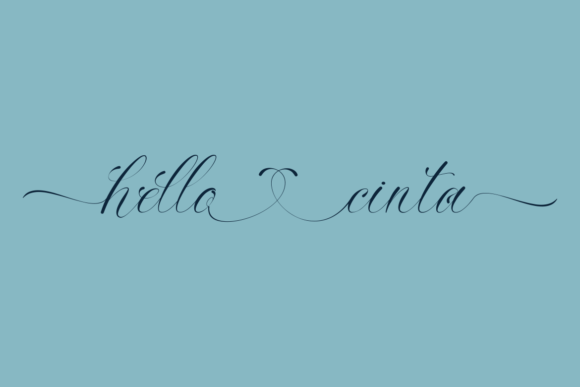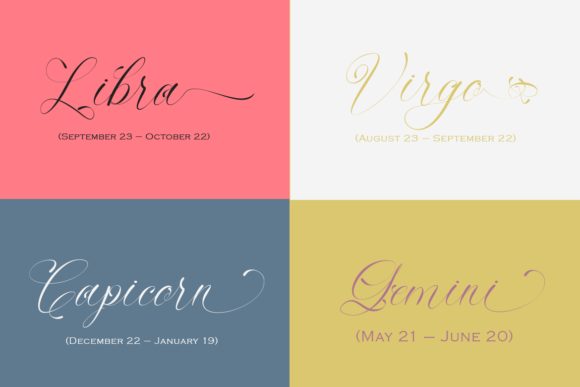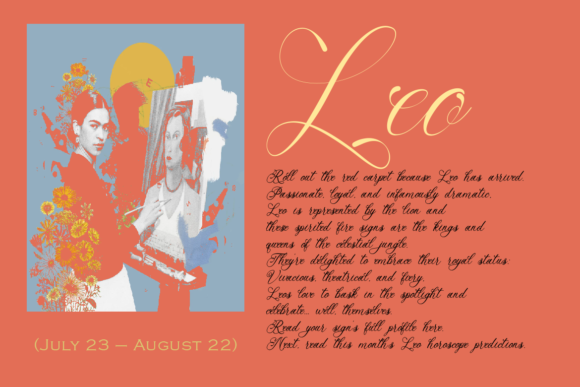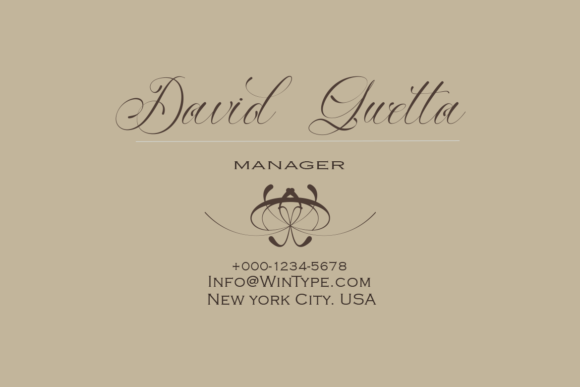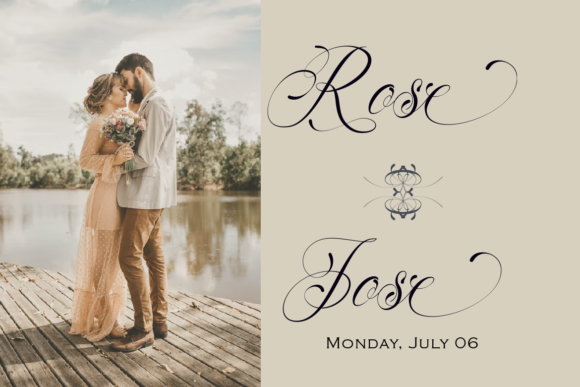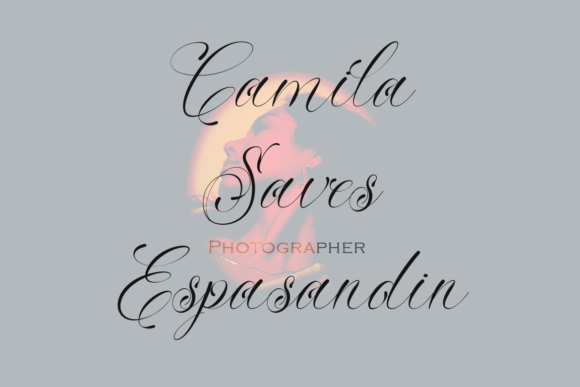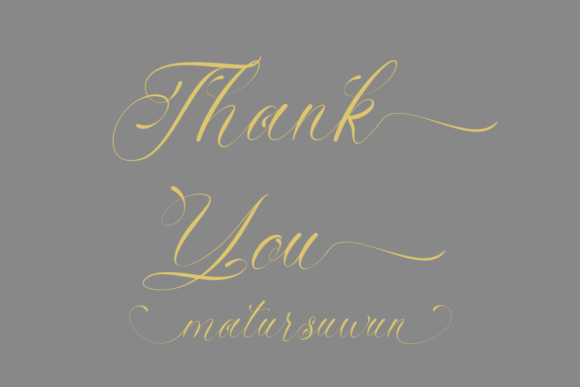
Sagitarius, with its sleek, modern, and graceful script, stands out as a font that exudes a ravishing style, making it a perfect choice for creating beautiful and sophisticated designs. Its well-balanced and contemporary design allows it to seamlessly complement a diverse range of creative projects. Sagitarius proves to be a versatile and elegant addition, suitable for various applications such as wedding invitations, stationary art, engaging social media posts, and more.
The font’s sleek and modern characteristics make it a captivating choice for contemporary design projects. Its graceful script adds a touch of sophistication, making it particularly well-suited for elegant and refined occasions such as weddings. Sagitarius can elevate wedding invitations to a new level of beauty, creating a lasting impression on recipients.
When applied to stationary art, Sagitarius brings a sense of grace and style, enhancing the visual appeal of various items. Whether used for letterheads, notecards, or other stationery elements, the font contributes to a cohesive and elegant aesthetic.
Engaging social media posts benefit from the font’s eye-catching design, allowing for the creation of visually stunning graphics and messages. Sagitarius adds a touch of modern elegance to promotional materials, ensuring that your brand or message is presented in a sophisticated manner.
One noteworthy feature of Sagitarius is its PUA encoding, or Private Use Area encoding. This functionality facilitates easy access to all glyphs and sweeps, enhancing the user experience and providing designers with a wide range of creative possibilities. This ensures that every detail of your design can be fine-tuned to achieve the desired look and feel.
In summary, Sagitarius is a font that combines sleek modernity with graceful script, making it a versatile choice for a variety of design projects. Whether crafting wedding invitations, stationary art, or social media posts, Sagitarius adds a touch of elegance and sophistication. With its PUA encoding, accessing the font’s unique features becomes effortless, allowing designers to fully explore its potential and create stunning visuals.